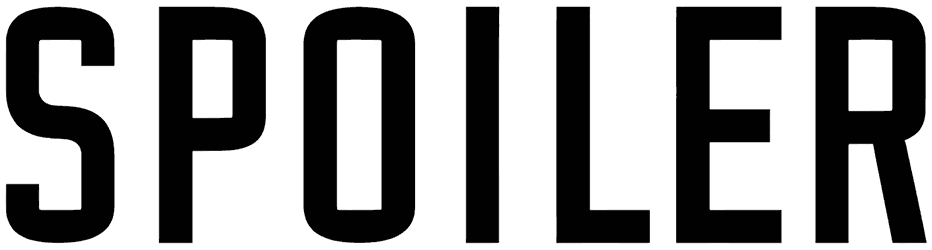
Spoiler Font
Have you always been this good at finding the font you need? Because many people think there’s nothing special going on about Spoiler, yet what they can’t see is that this sans serif font always gives your text the kind…
Have you always been this good at finding the font you need? Because many people think there’s nothing special going on about Spoiler, yet what they can’t see is that this sans serif font always gives your text the kind of importance it’s lacking. So good choice!
Tall, firm, entirely in caps, and looking more organized than usual because of its geometrical structure, this Spoiler font is definitely needed in your sports team uniforms, car tire logo, and anything like that.